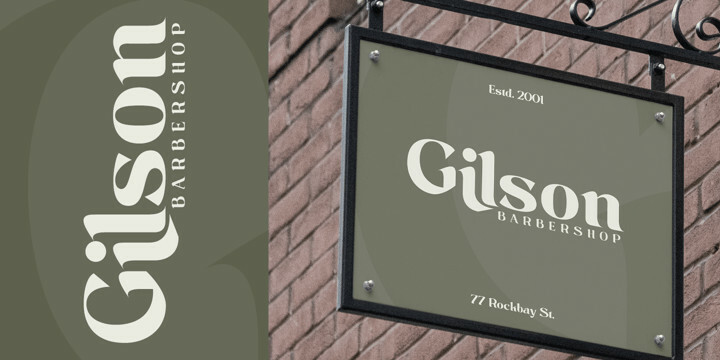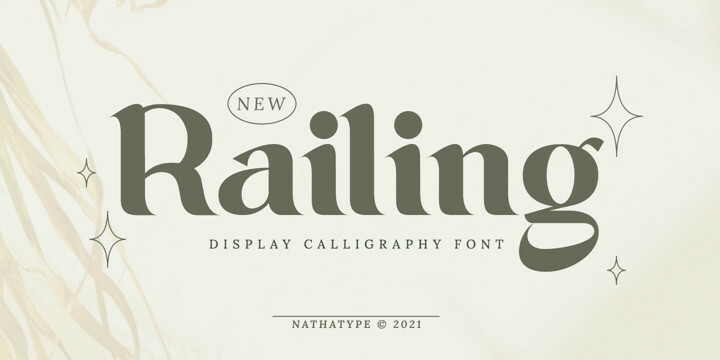
Railing Font
Railing is a gorgeous font, designed with a modern vibe. This font is perfect for anything simple and direct. Every stroke and curve was created to entice happiness and elegance. A real head-turner for your presentation, designs, branding, quotes, invitation, website illustrations, and much more.
Our font always includes Multilingual Support to make your branding reach a global audience. Inspire your audience, clients, or guests with this beautiful, statement font.